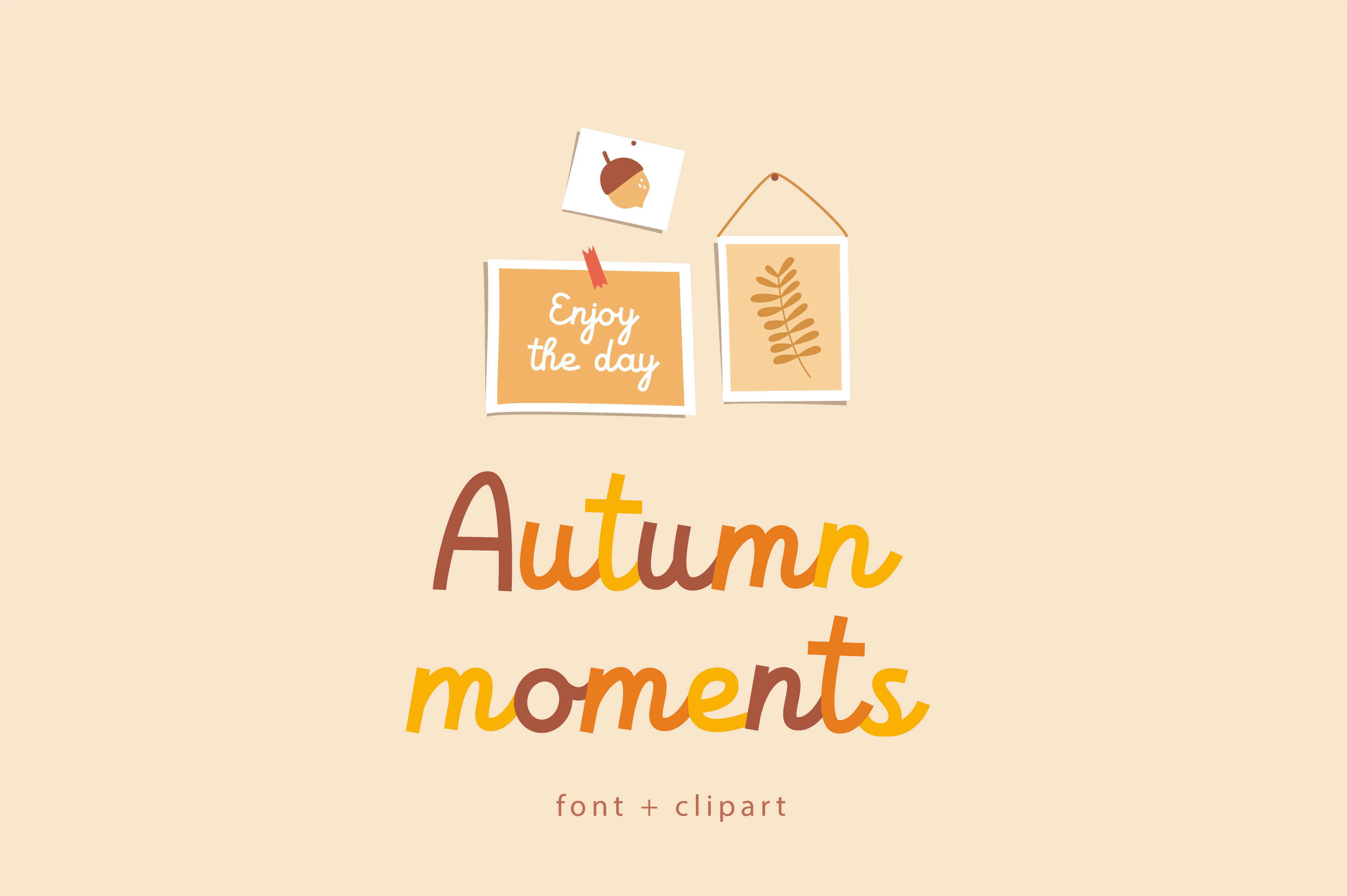
Autumn moments - cute font and clipart. Use for logos, quotes, invitations, greeting cards, journals, posters, baby clothing and more. This font will make your design looks great and fun!